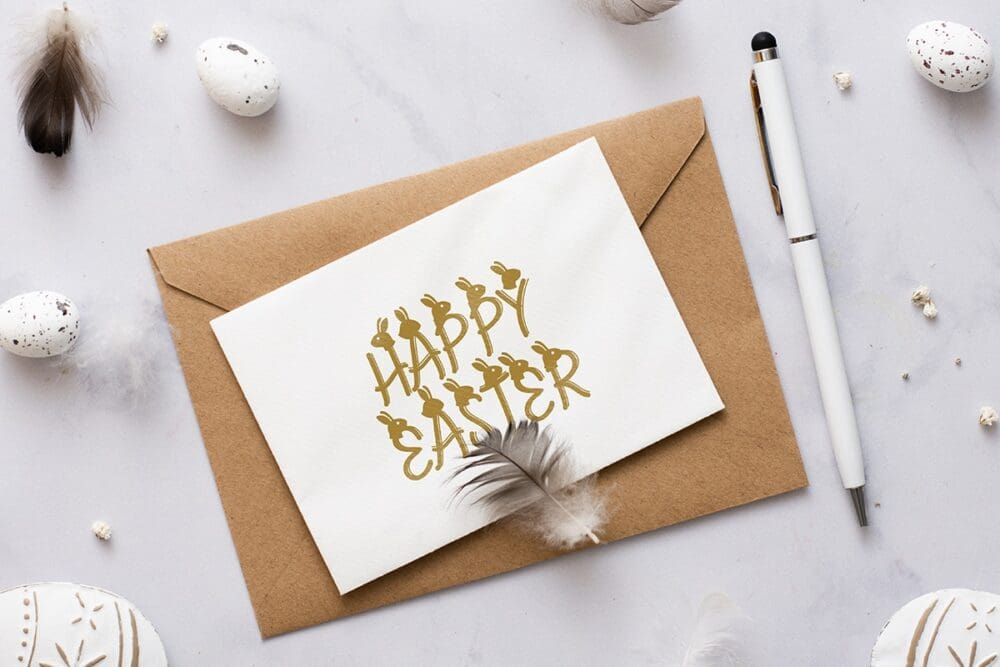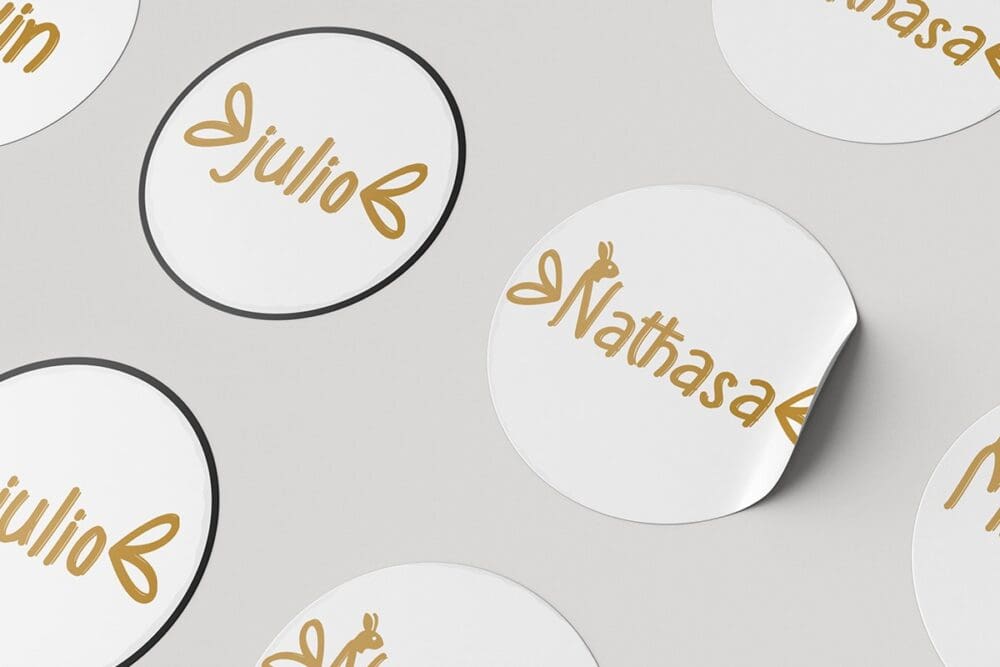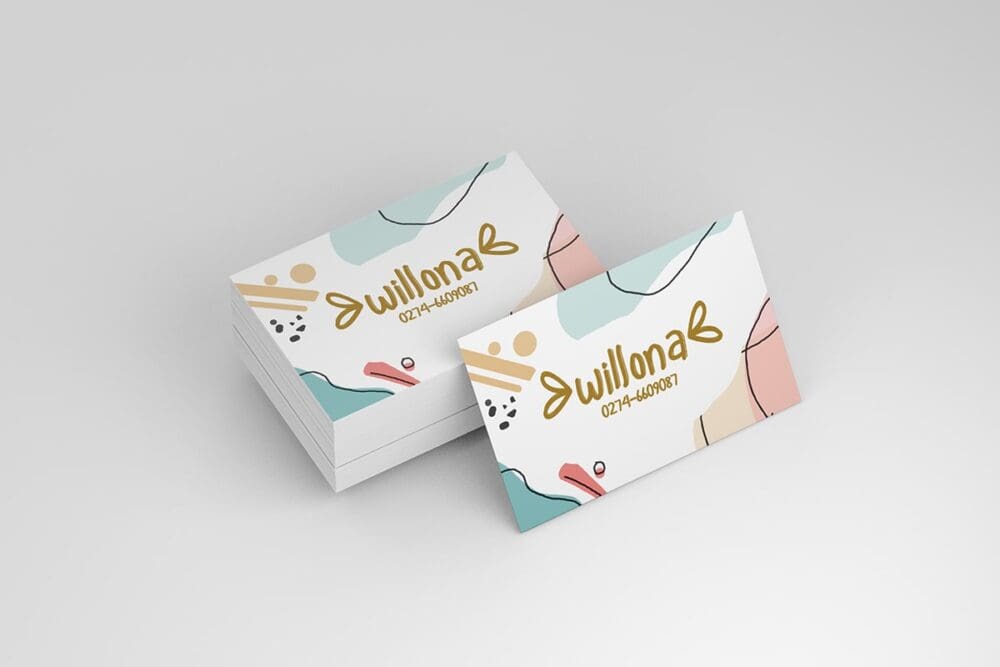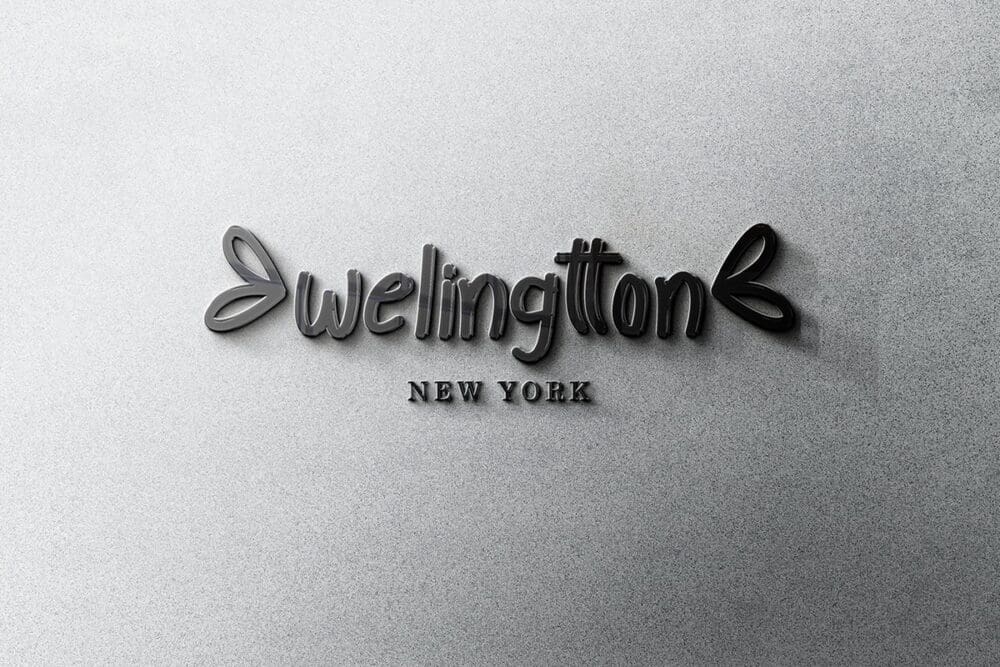
Easter Warmth Font
Easter Warmth is a beautiful light display font with a unique feel and a stunning impact. It will add a luxury spark to any design project that you wish to create!